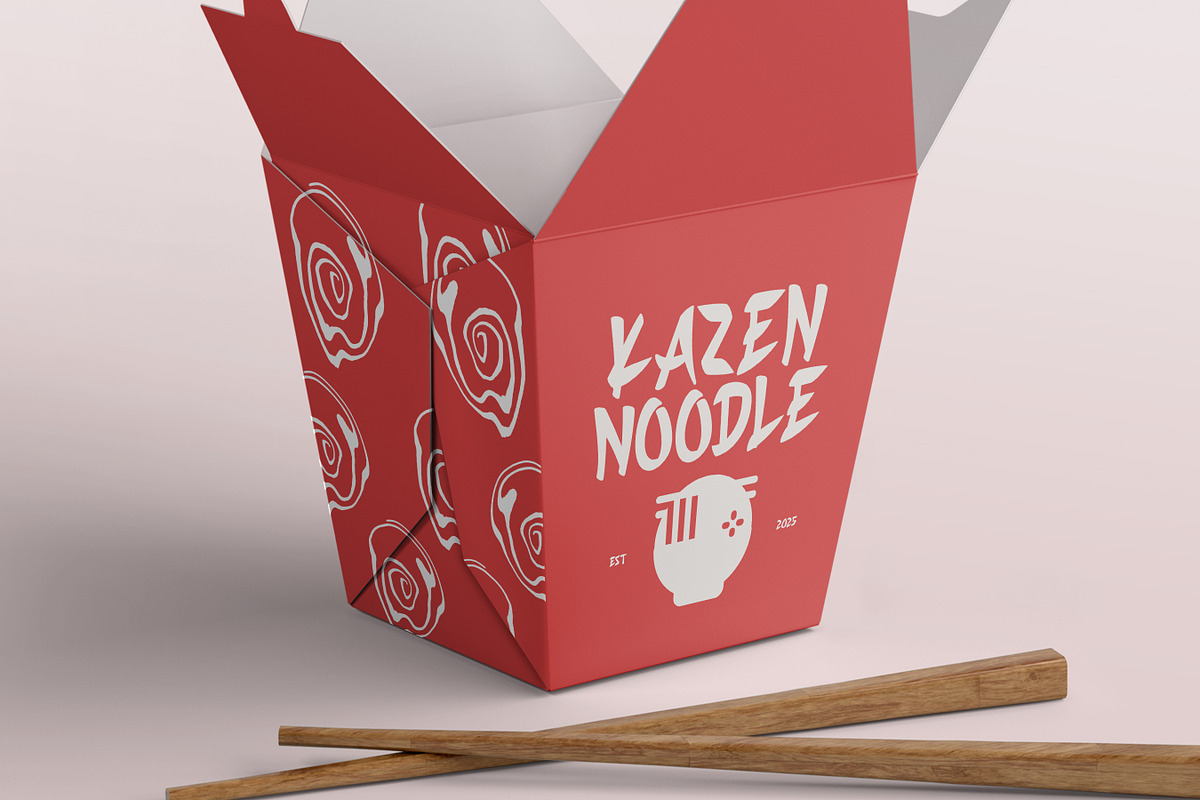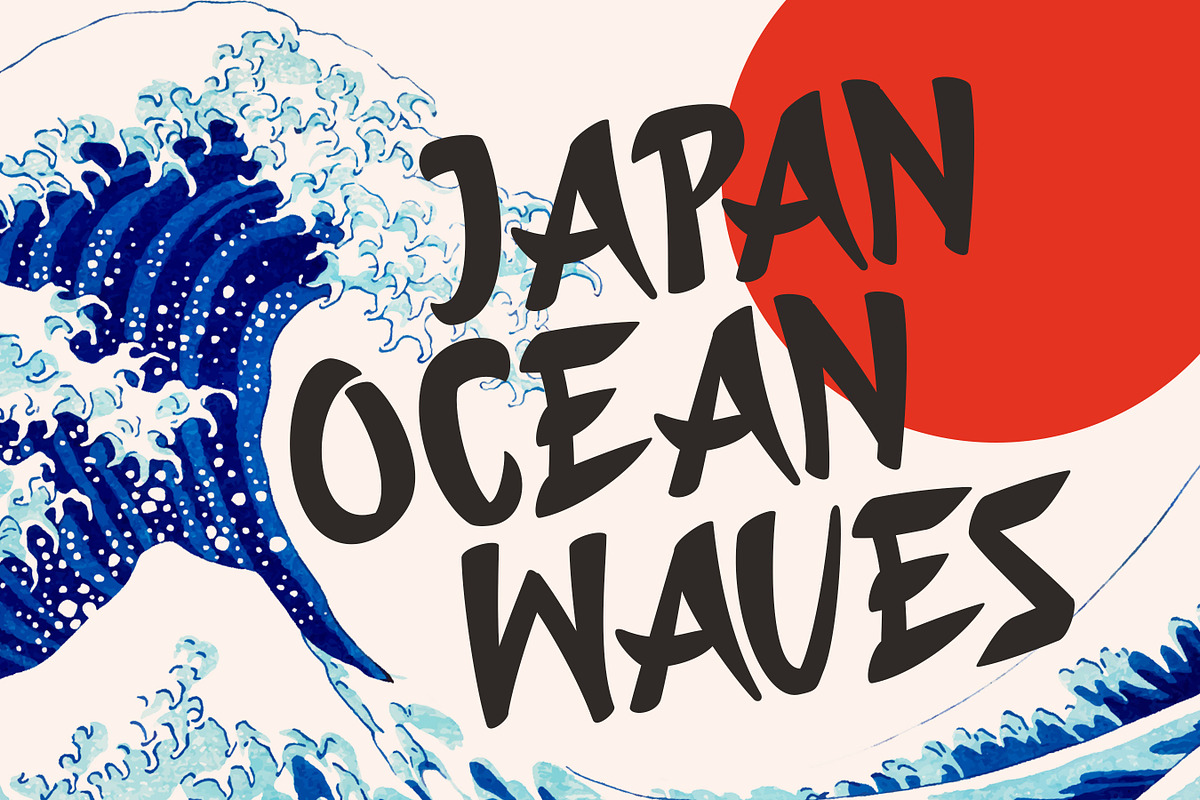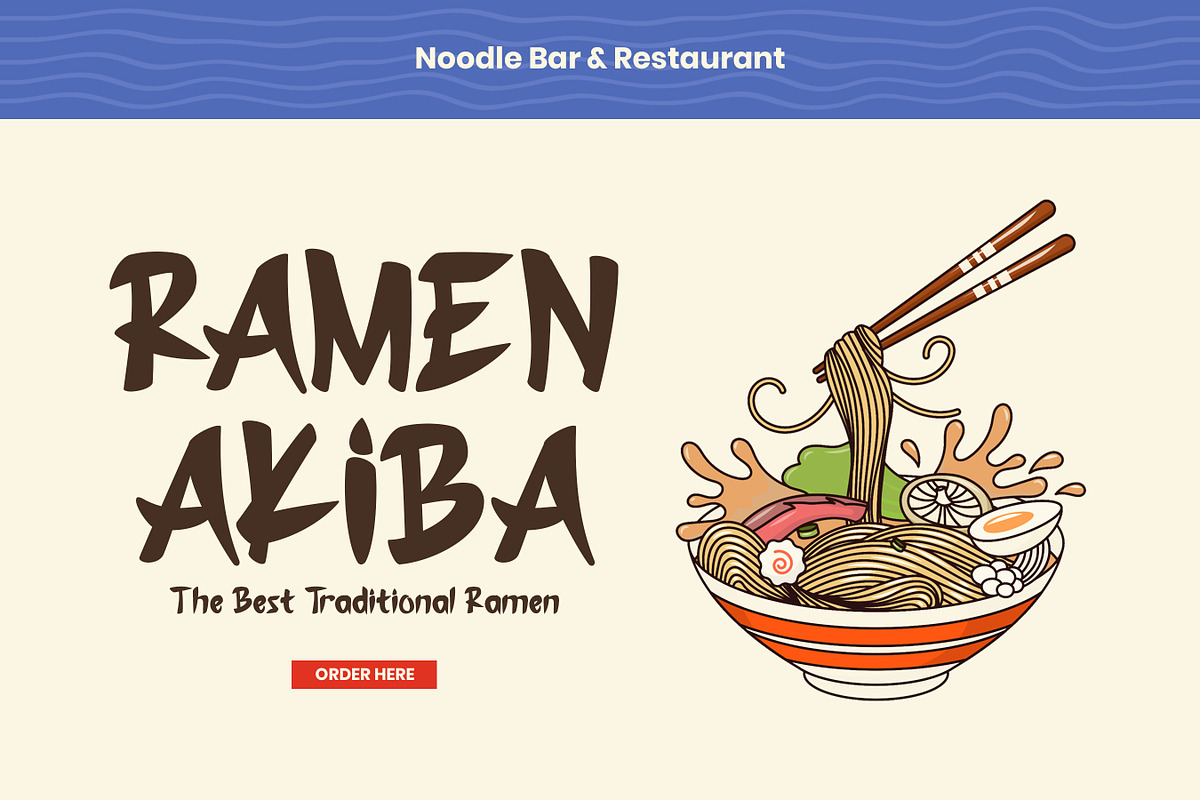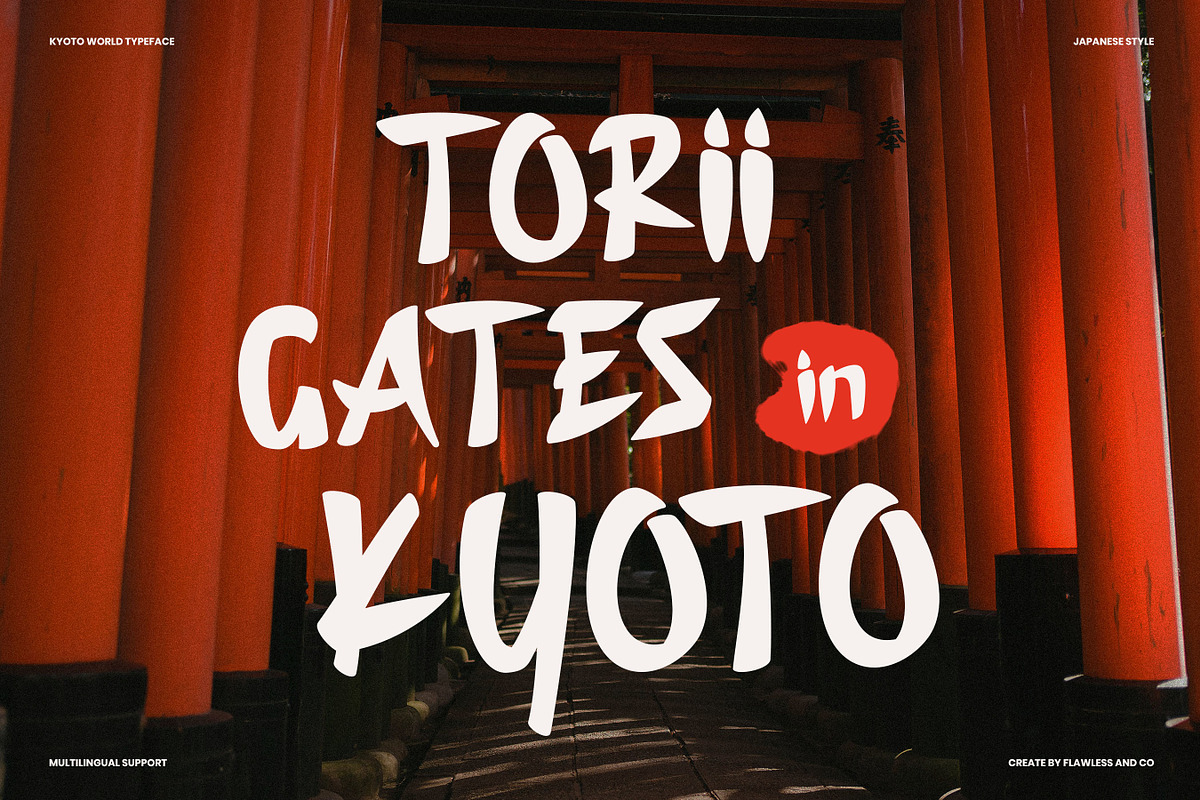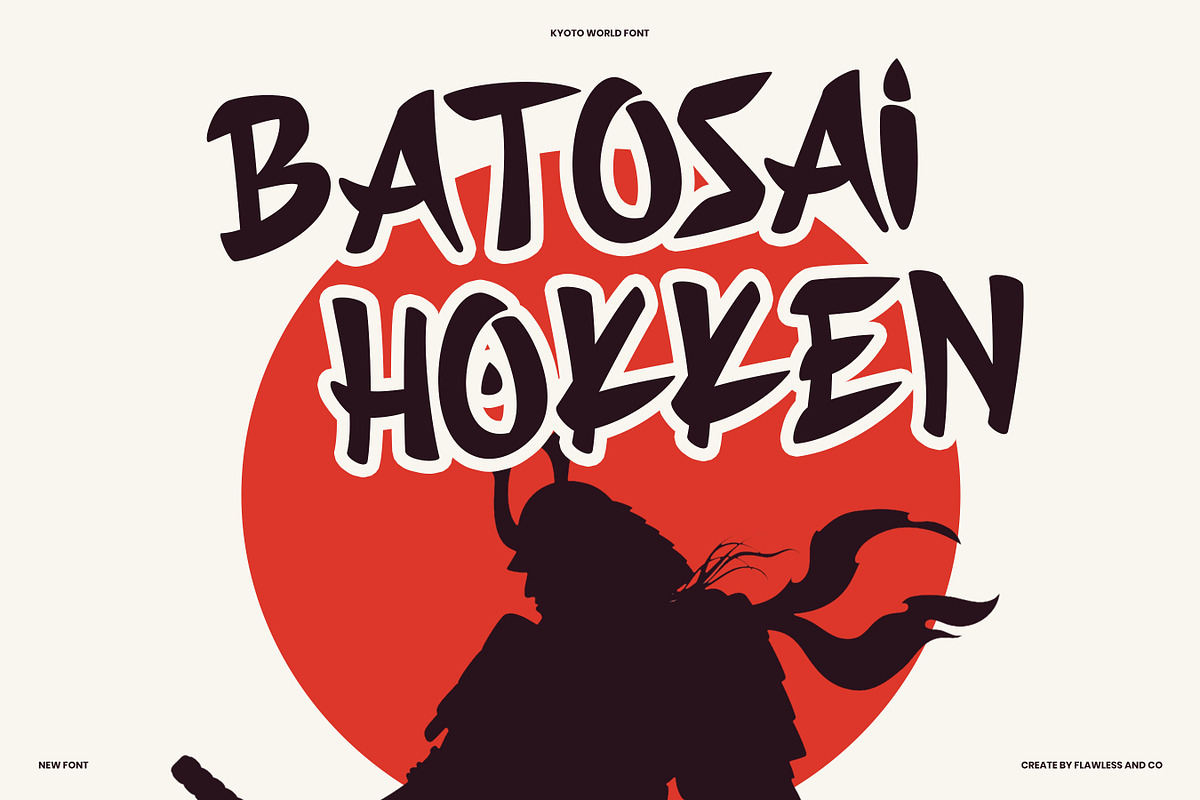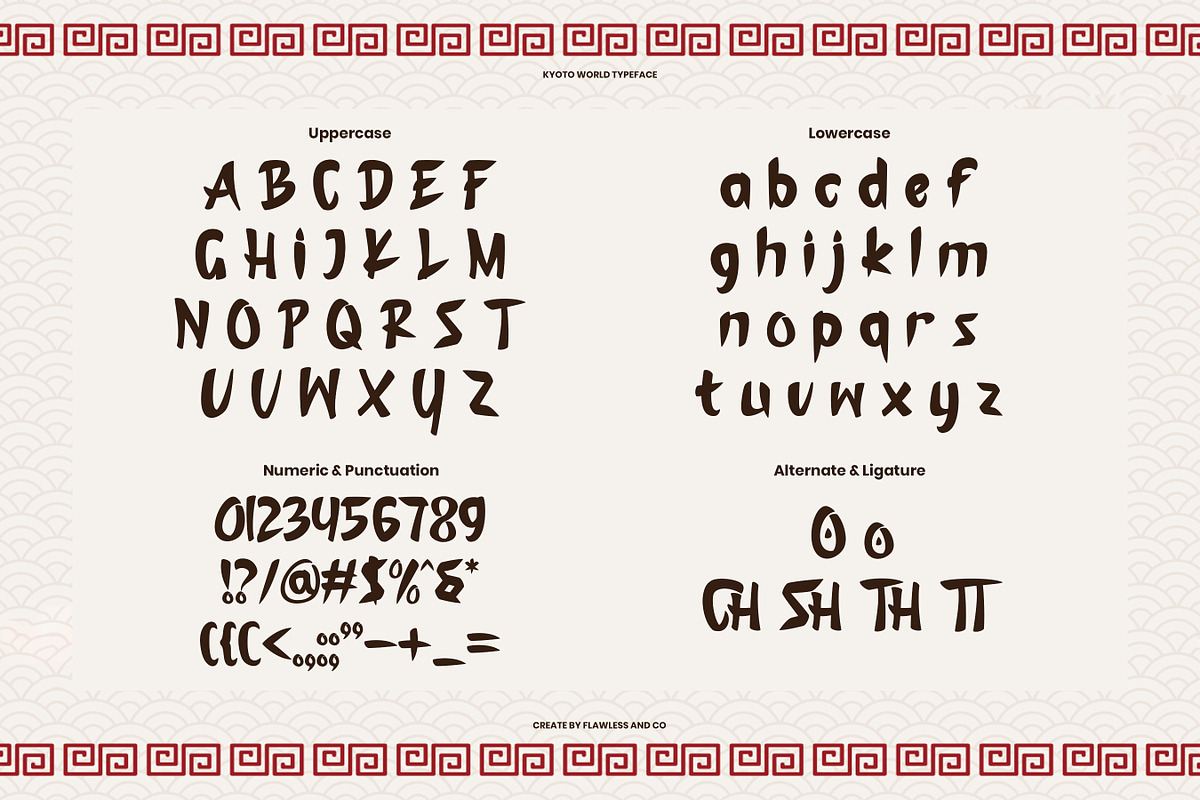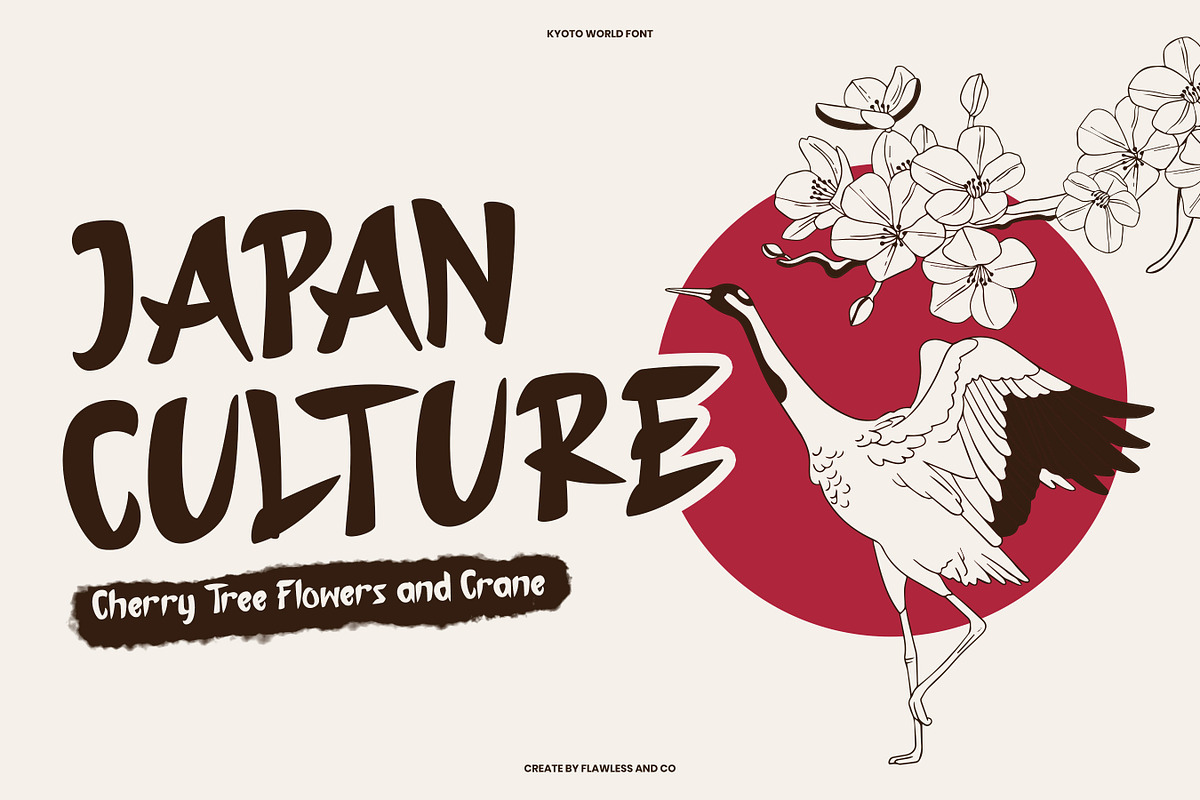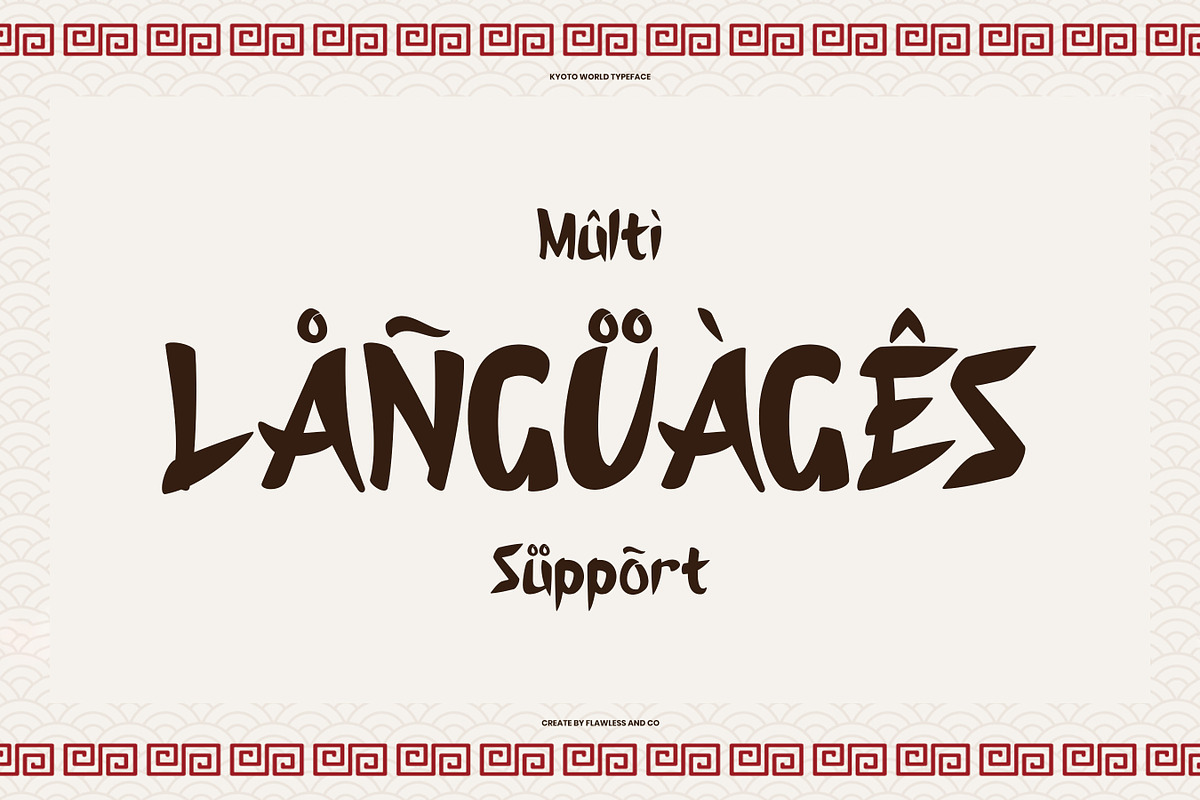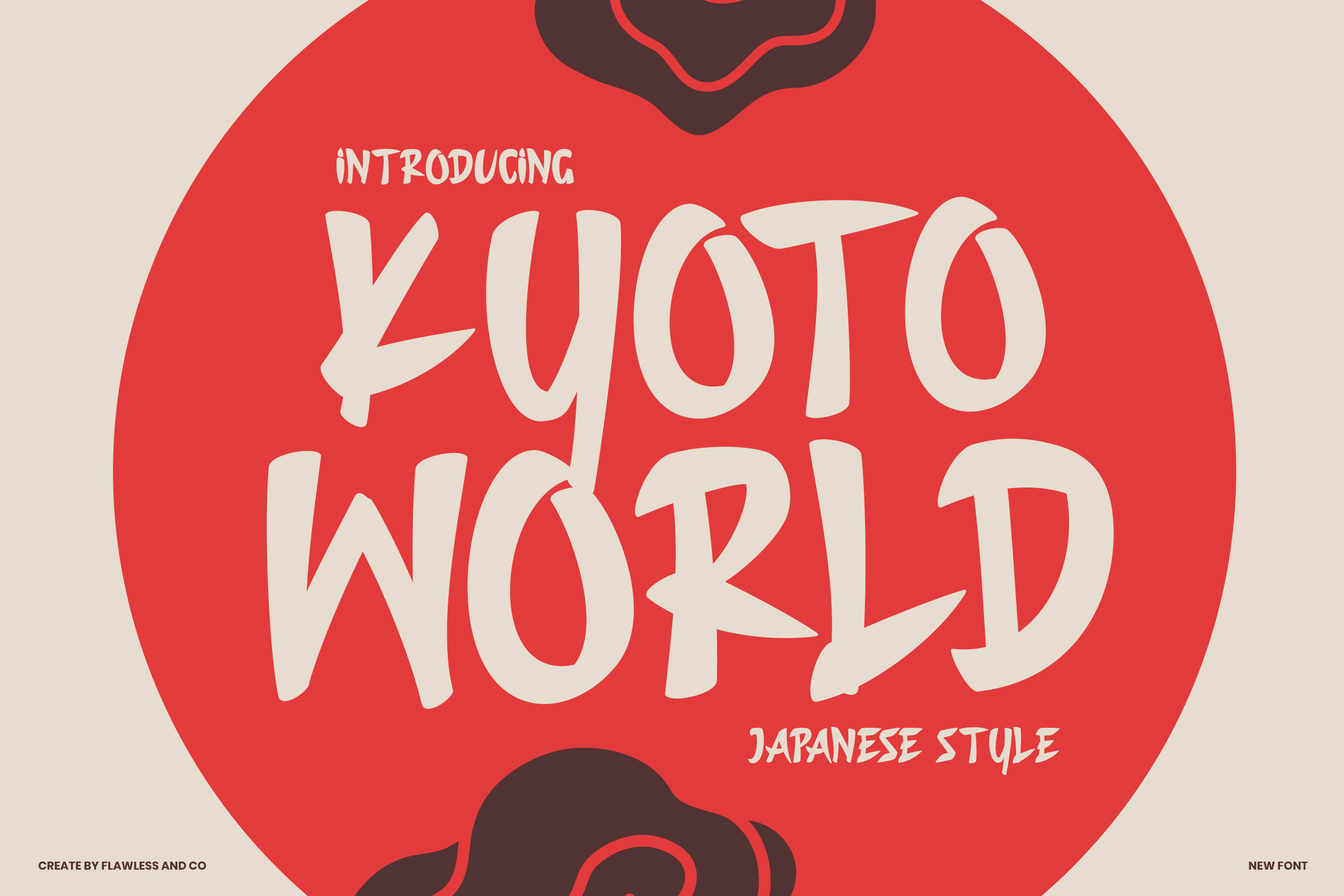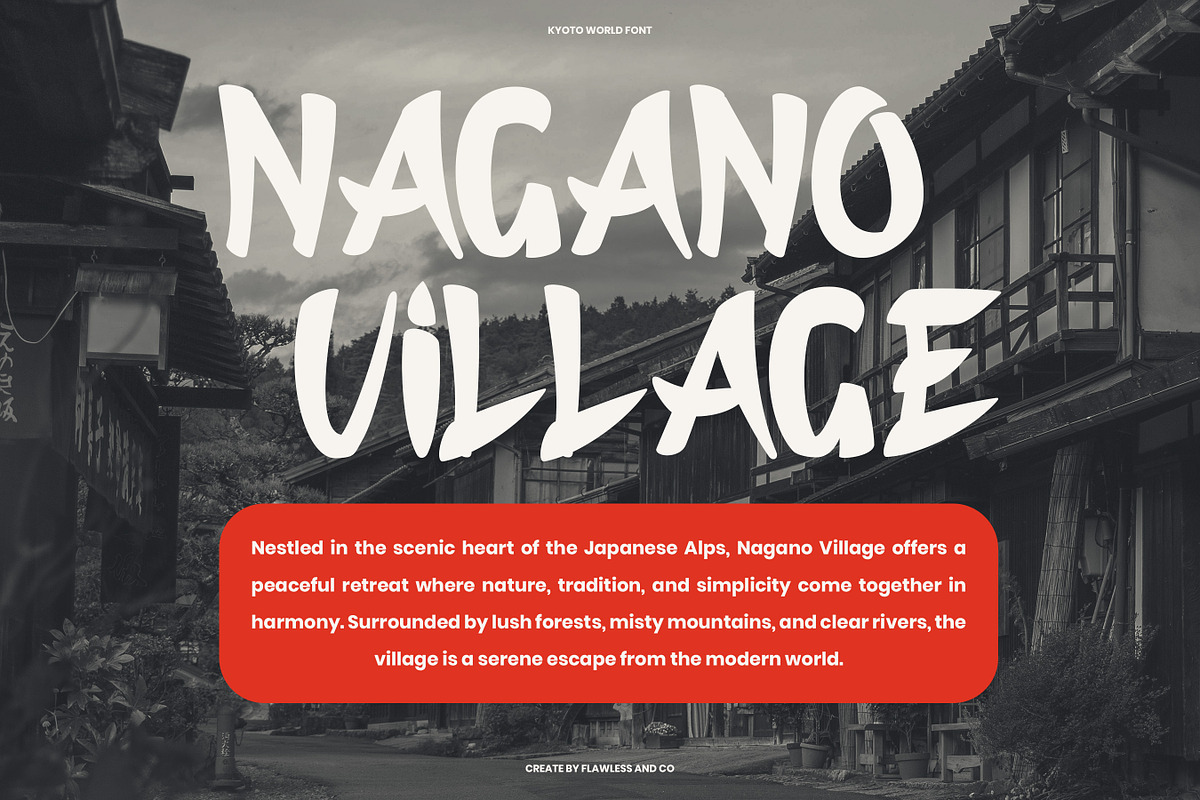
Kyoto World - Japanese Style Font
KYOTO WORLD – JAPANESE STYLE FONT KYOTO WORLD a bold Japanese-style font inspired by the vibrant energy of Japan’s street signs, ramen shops, and cultural aesthetics. This typeface combines modern brush strokes with a playful, handcrafted spirit that brings life and motion to your words. Perfect for branding, restaurant menus, packaging, merchandise, posters, and anything that craves a touch of East Asian flair, Kyoto World gives your designs that distinct, eye-catching charm. Each letter dances with character—like brush calligraphy made for the digital world!
Who Should Use KYOTO WORLD?
KYOTO WORLD is made for creatives, designers, and brand builders who want to infuse their projects with bold cultural flair and visual impact. If you're working on themes related to Japan, Asian aesthetics, or just want a font that feels energetic and expressive, KYOTO WORLD is the perfect fit.
A Must-Have Font for Brand Creators and Designers
KYOTO WORLD is a must-have for designers seeking to bring character, culture, and uniqueness to their work. With its bold and artistic Japanese-inspired style, this font stands out in branding, logo design, packaging, and creative headlines. It's perfect for anyone aiming to make a strong and memorable impression.
Why Choose KYOTO WORLD for Brand and Logo Projects?
KYOTO WORLD blends bold design with traditional Japanese flair, making it an exceptional choice for branding and logo projects that demand attention and character. Its unique strokes and stylized forms evoke cultural richness and visual impact, allowing your designs to stand out with personality. Whether you're crafting a logo, poster, or product packaging, KYOTO WORLD brings an authentic and artistic touch that elevates your brand identity.
Suitable For:
- Branding and logo design
- Packaging for food, fashion, or cultural products
- Posters, flyers, and editorial headlines
- Japanese-themed restaurant and café identities
- Social media visuals with a strong visual character
- Creative projects needing a bold, cultural typeface